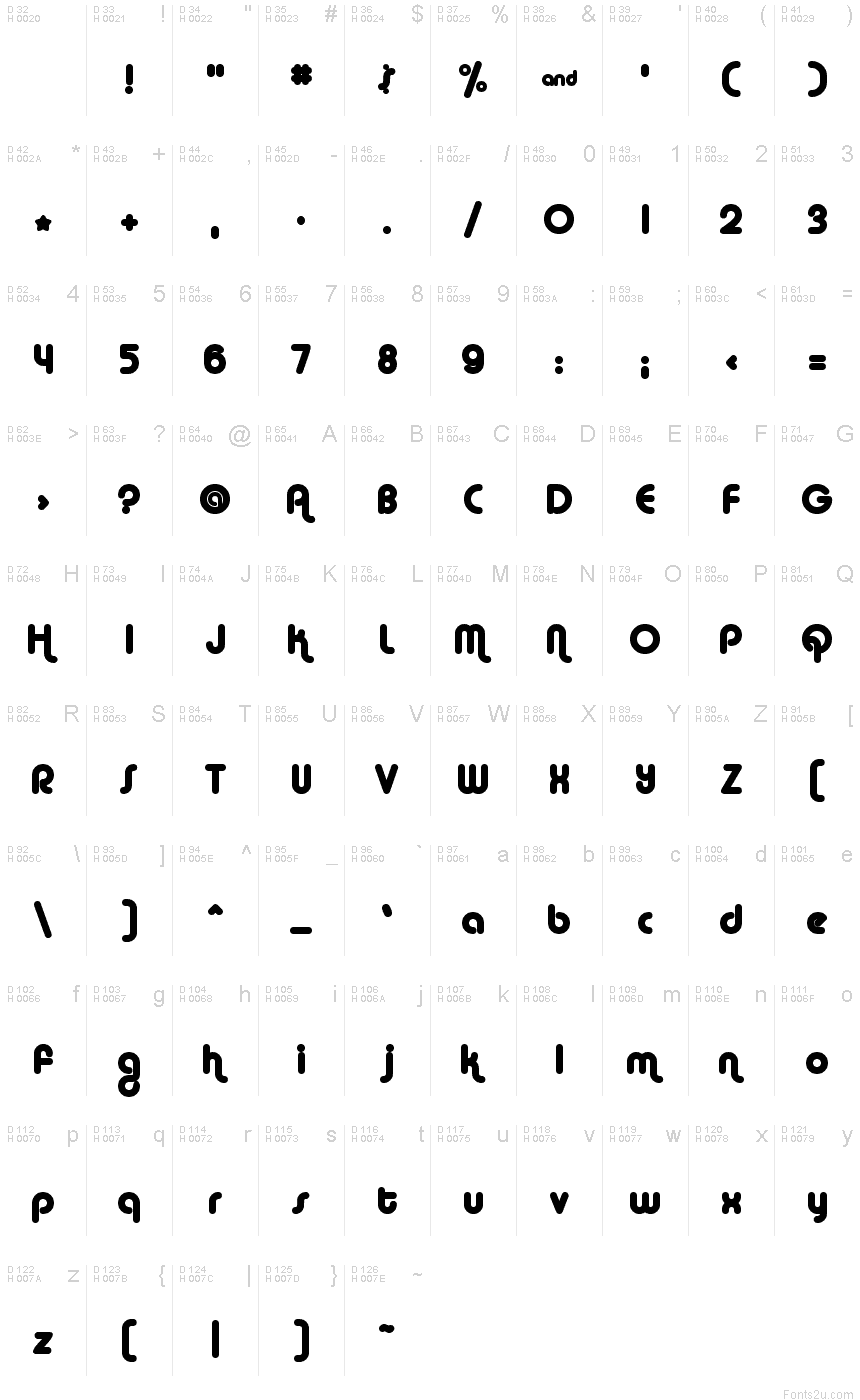
Alba Matter
Alba Matter font by Font"a"licious Fonts is a free groovy display typeface with a soft, tubular feel that looks almost extruded from a single line of inky rubber. Letters curve into each other with chunky, rounded forms and snug spacing, creating a continuous rhythm that feels playful but substantial. As part of the Alba family, it carries a distinct retro-futuristic vibe—bold, bubbly, and impossible to ignore at larger sizes.
Using Alba Matter, headlines feel like they’re sliding across the page, making this free font a natural fit for kids’ brands, party invitations, festival posters, album covers, and retro game titles. It shines on merch and stickers where the thick curves reproduce cleanly. Pair Alba Matter with a simple geometric sans in smaller text, and let this groovy typeface handle the loud, joyful moments.